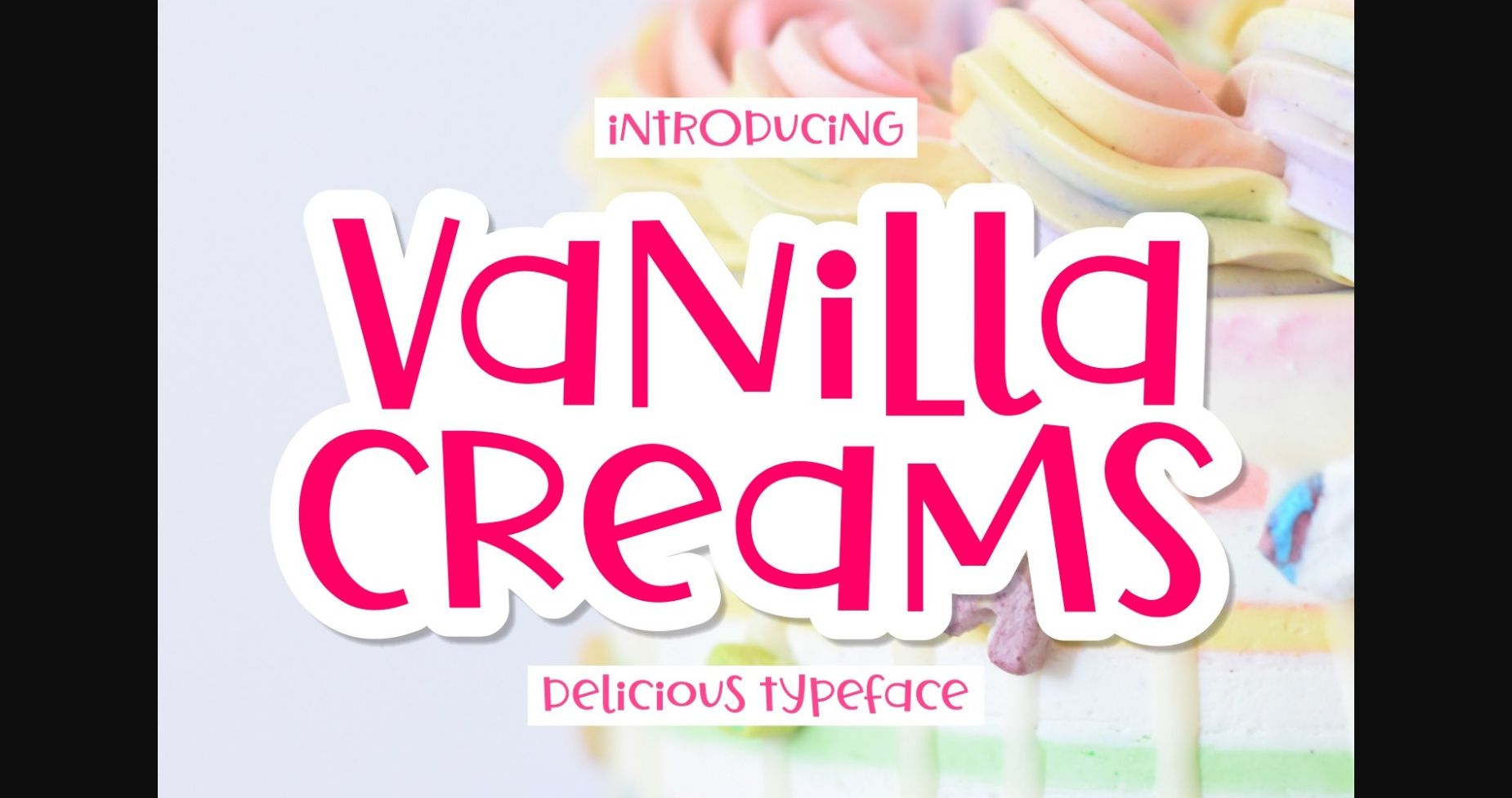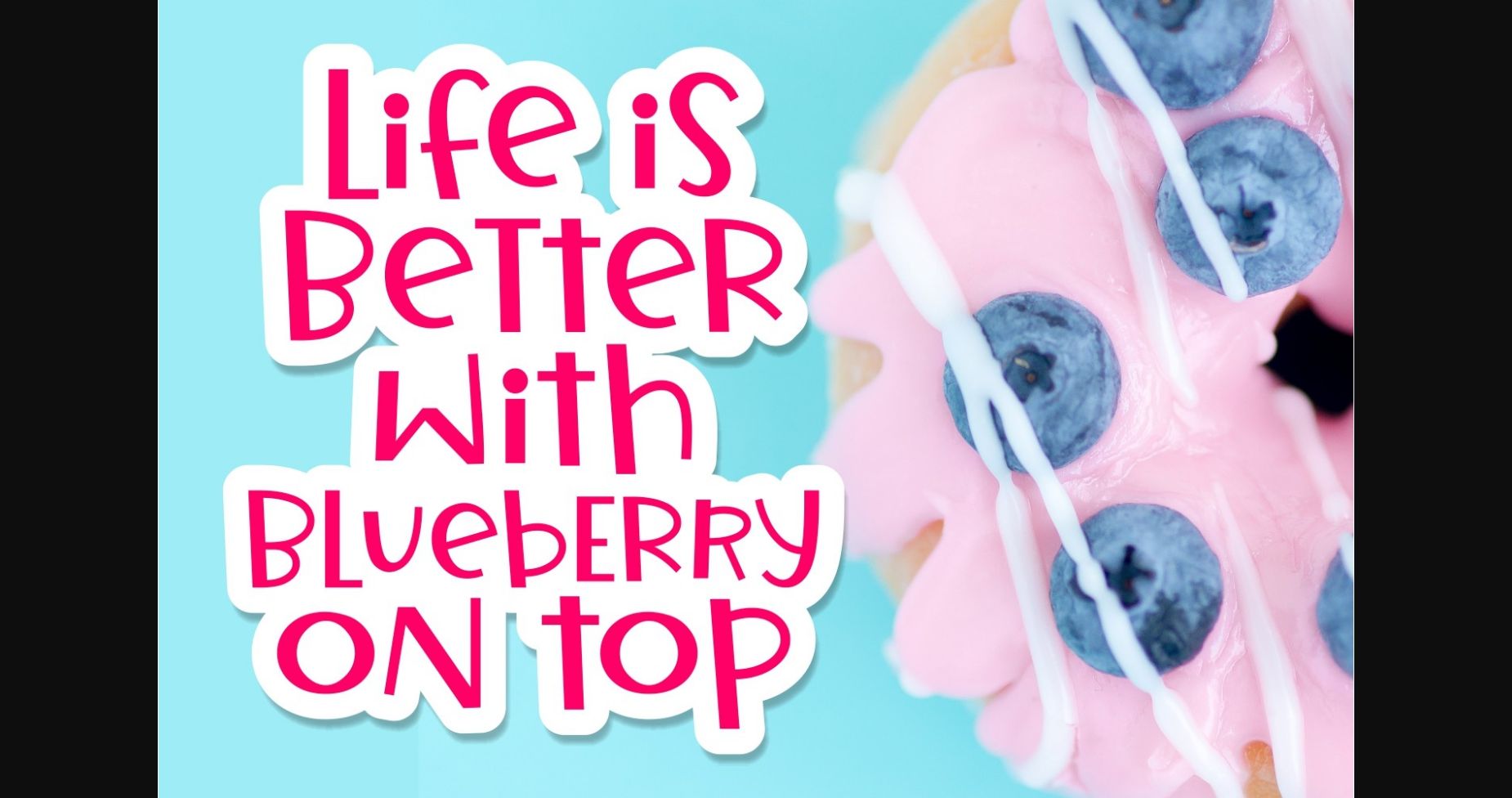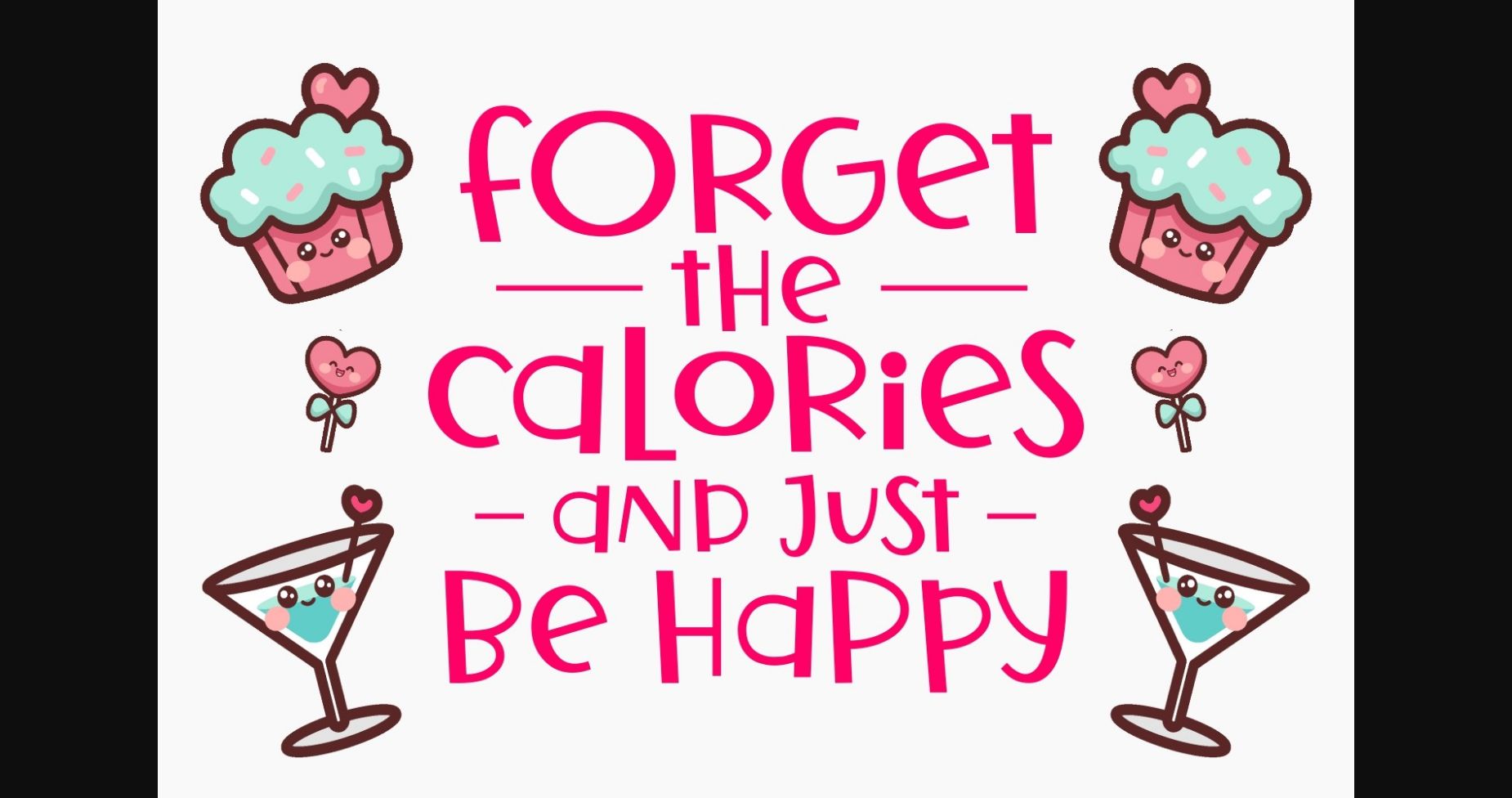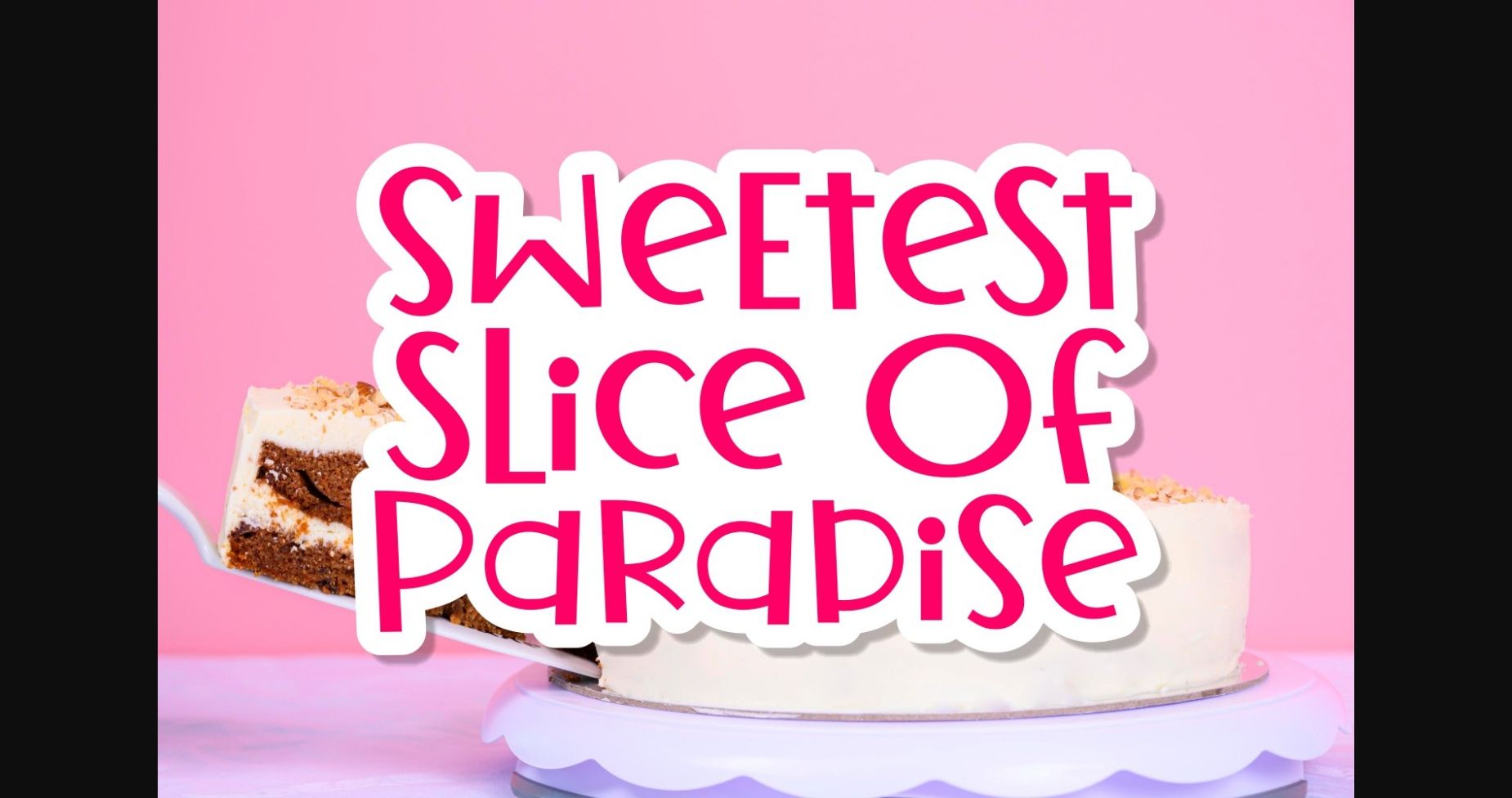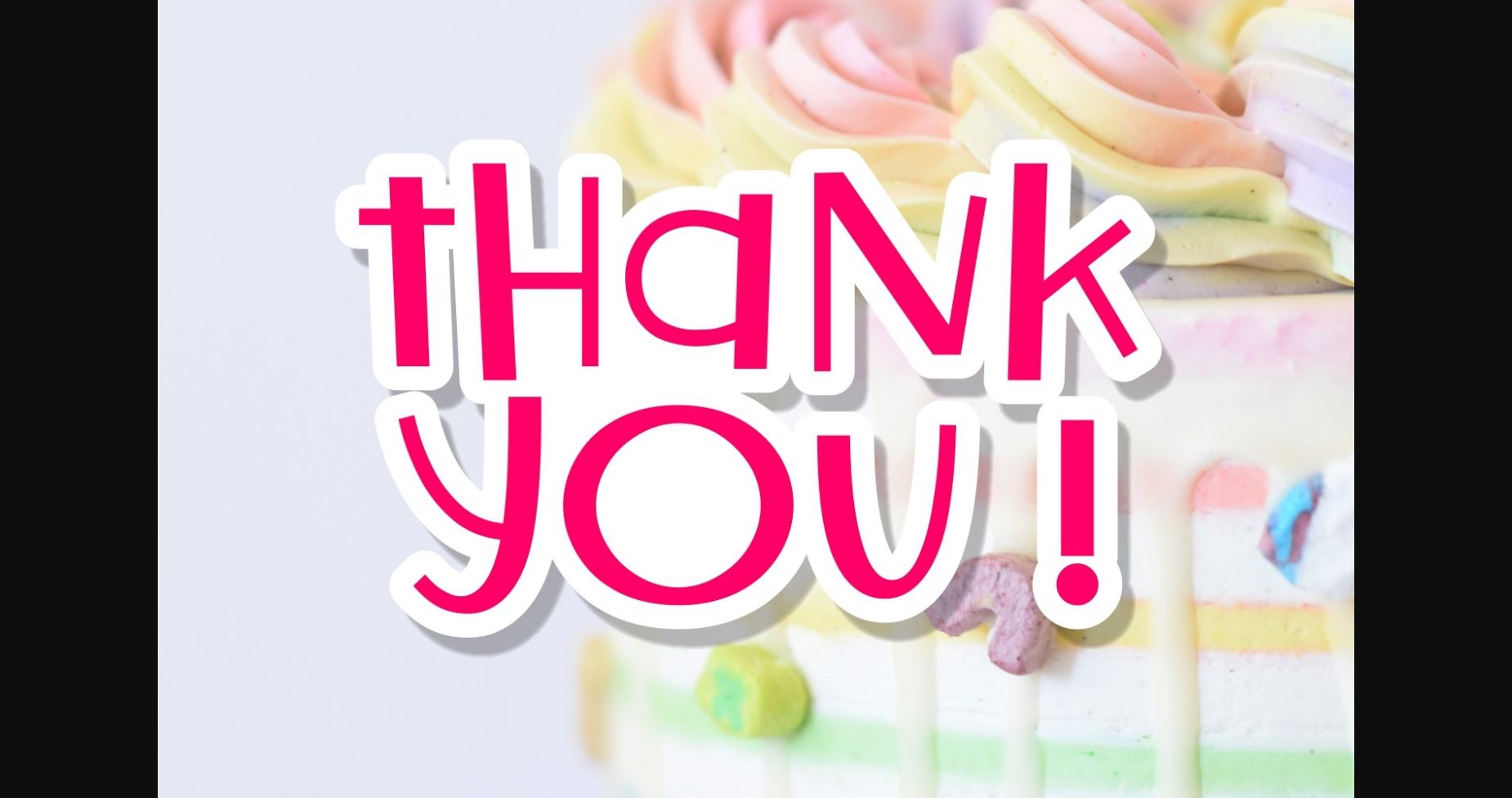
HomeSans Serif FontsVanilla Creams Font Sans Serif Fonts Vanilla Creams Font FacebookXPinterestWhatsApp 1 of 7 ... Vanilla Creams Font Poster 2... Vanilla Creams Font Poster 3... Vanilla Creams Font Poster 4... Vanilla Creams Font Poster 5... Vanilla Creams Font Poster 6... Vanilla Creams Font Poster 7... About Vanilla Creams Font Vanilla Creams is an asymmetrical and playful sans serif font. Cheerful and easily readable, this font will take your creations to the highest levels while keeping them interesting and grounded. DOWNLOAD NOW People also explored Mrs. Hinch Font Matthew Font Cute Baby Font Smart Children Font Roselia Font Suttimmos Font Lemonade Juice Font Denila Font Forgotten Futurist 344 0 TagsVanilla Creams Font Previous articleLivy Callista FontNext articleBeautiful Sunday Font LEAVE A REPLY Cancel reply Comment: Please enter your comment! Name:* Please enter your name here Email:* You have entered an incorrect email address! Please enter your email address here Website: Save my name, email, and website in this browser for the next time I comment. Personal Use Free Zalitta Personal Use Free Read more about this font Wanita Cantik Personal Use Free Read more about this font Sileighty Personal Use Free Read more about this font Evelyne Personal Use Free Read more about this font BLOG Free vs Paid Fonts: Why Investing in Premium Fonts Is Worth It Free vs Paid Fonts: Why Premium Fonts Are Worth It in 2025 The debate of free vs paid fonts continues in the design world. While... Elegant Wedding Invitation Fonts – Handwritten & Script Fonts Transform Your Website: Elevate Your Typography with 7 Best Web Font Generators Modern Sans-Serif Fonts That Brands Love in 2025